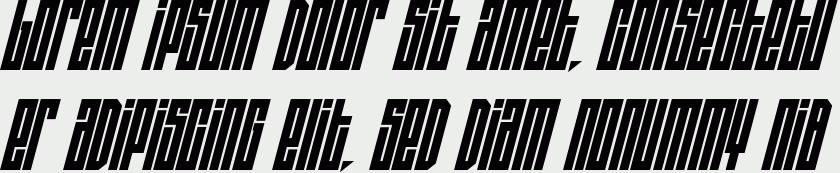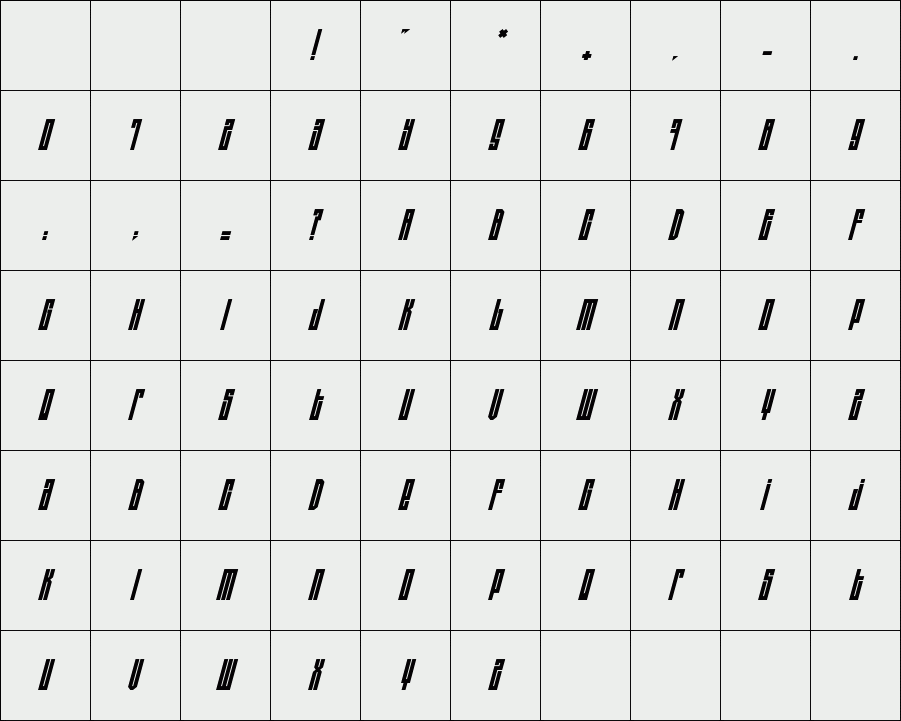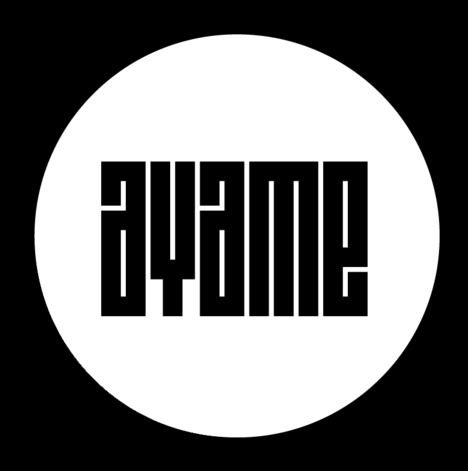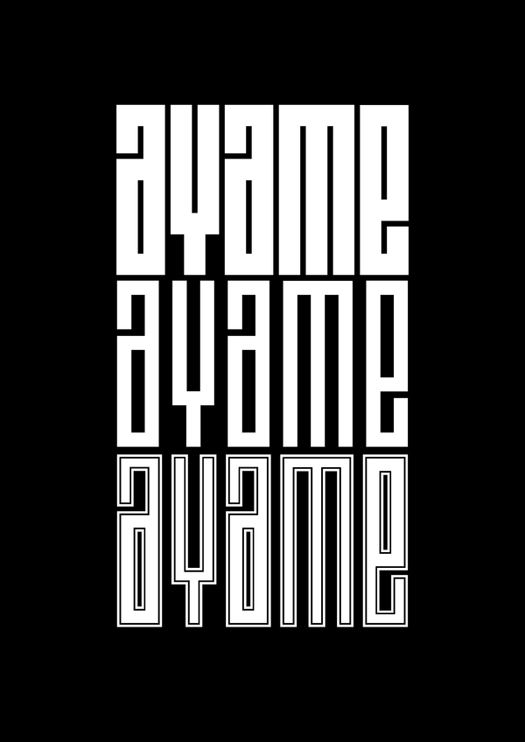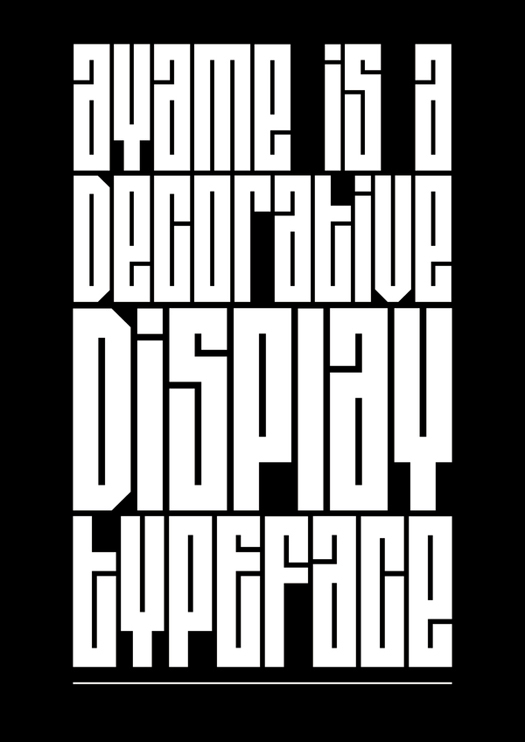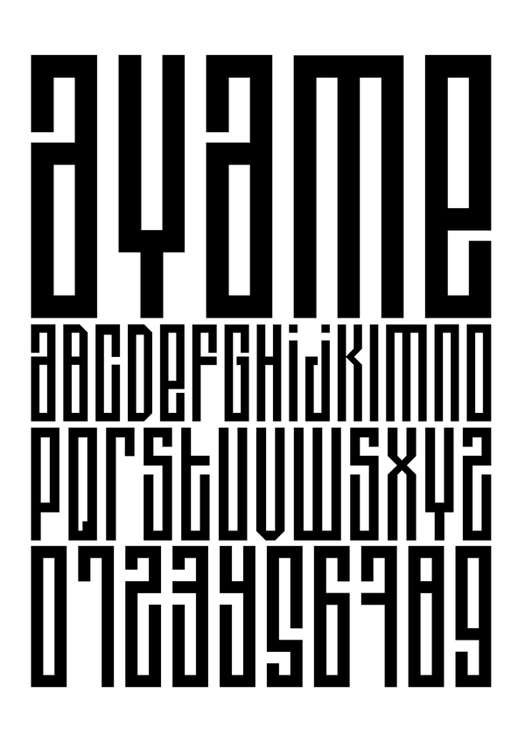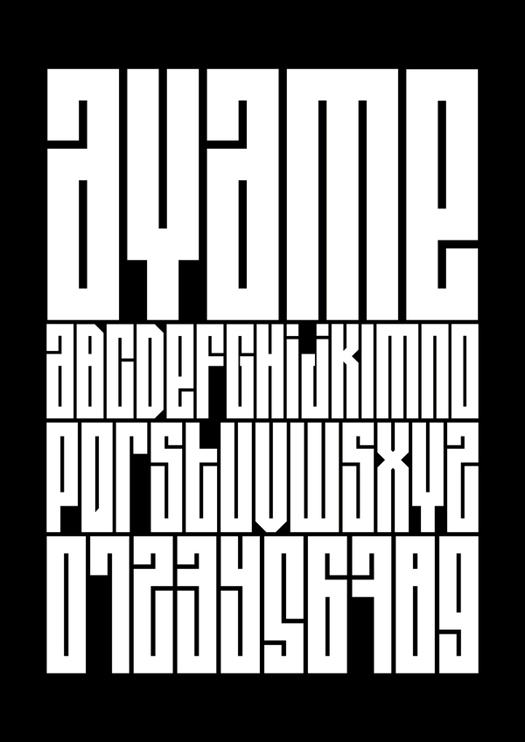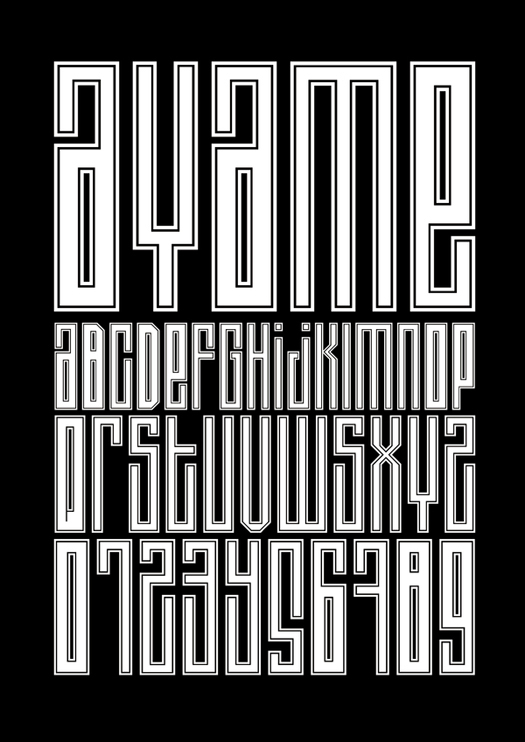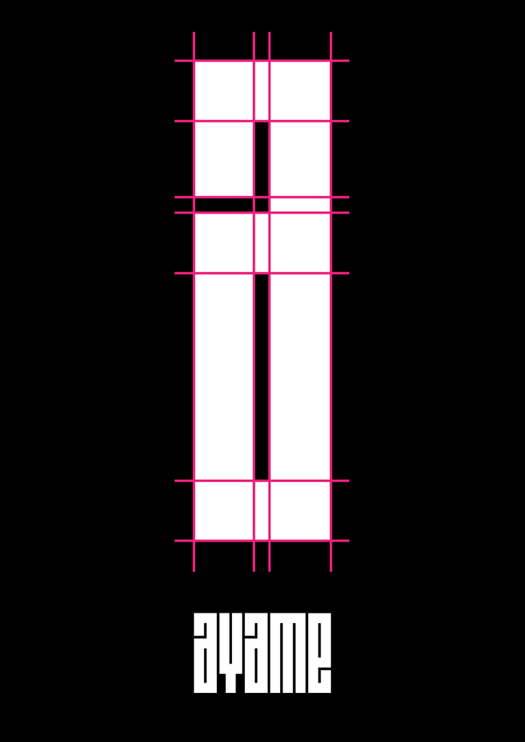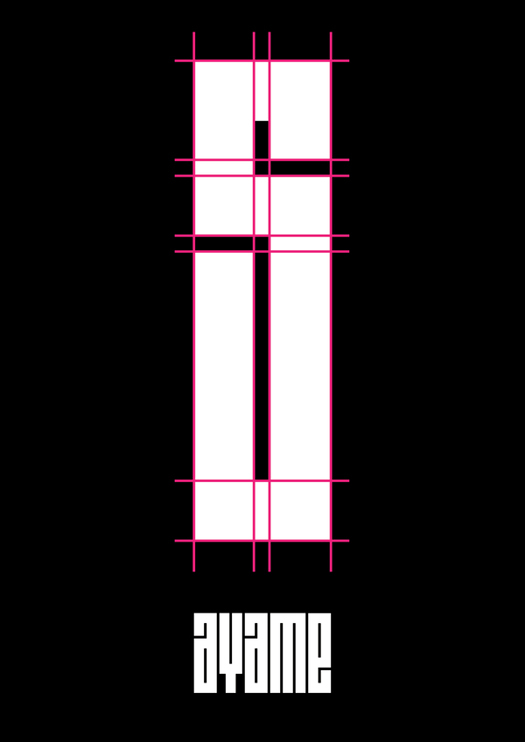
Ayame
/ Ayame Bold Italic
Ayame is a display font which looks great on posters, logos, and titles. Ayame is a 2-weight family with a heavy retro look.
Designer: Andreas Leonidou